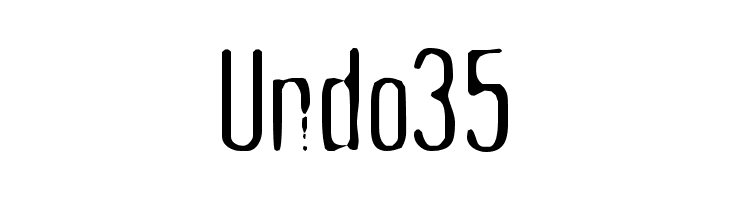
( Fonts by German Olaya - www.typo5.com )
A distressed, grunge-style font with a rugged, hand-crafted appearance.
( Fonts by Mr Fisk - Mike Larsson - fontorama.net )
A distressed, grungy font with bold, textured characters.
( Fonts by German Olaya - www.typo5.com )
An artistic, elongated font with a modern-retro vibe.
( Fonts by Meir Sadan - www.sadan.com OFF SITE )
A bold and dynamic font with strong, thick strokes and a slightly condensed form.
( Fonts by Dieter Schumacher )
A bold, decorative font with characters encased in starburst shapes.